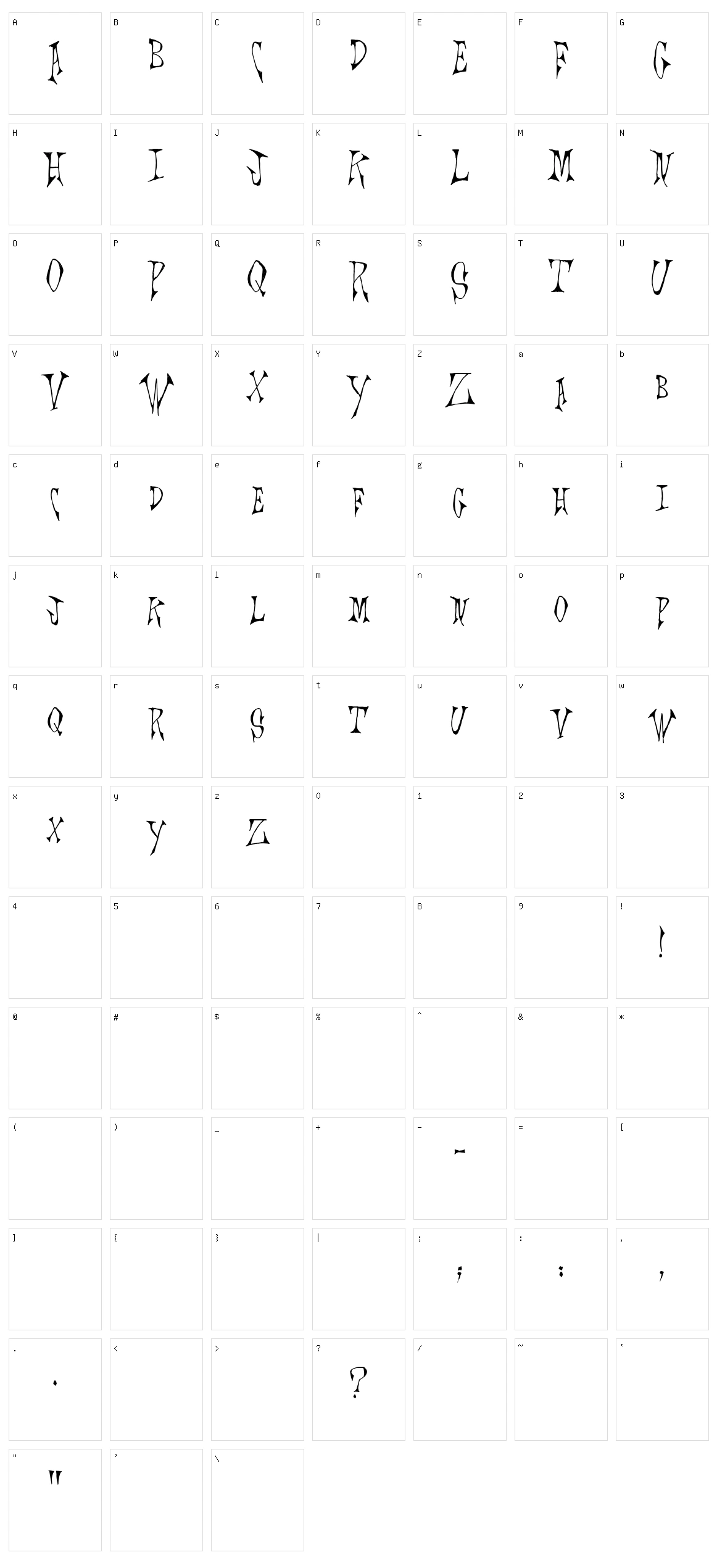
SCRAWLINGS
A TrueType Font by S. John Ross
This is just a doodle I've been playing with, but I kind of like it. It has no numbers yet, or much punctuation - at this point it's an incomplete poster-and-logo font, Version 0.9. Scrawlings is like a lot of the fonts I build as a pastime but never display here - just a sample of hand-drawn wanderings through the alphabet. Some of these, I expand into nicer work. Most of 'em just get discarded as exercises. Here's hoping this particular exercise provides some brief amusement.